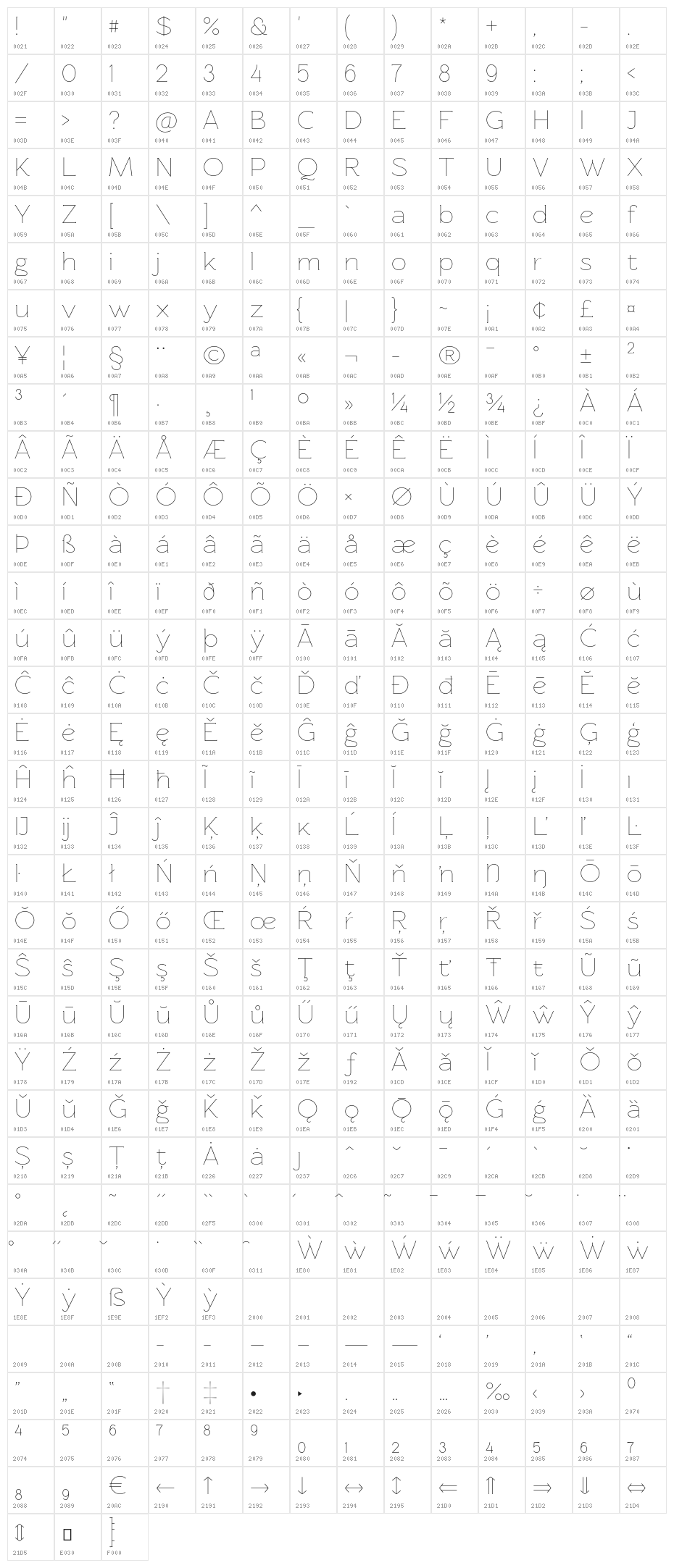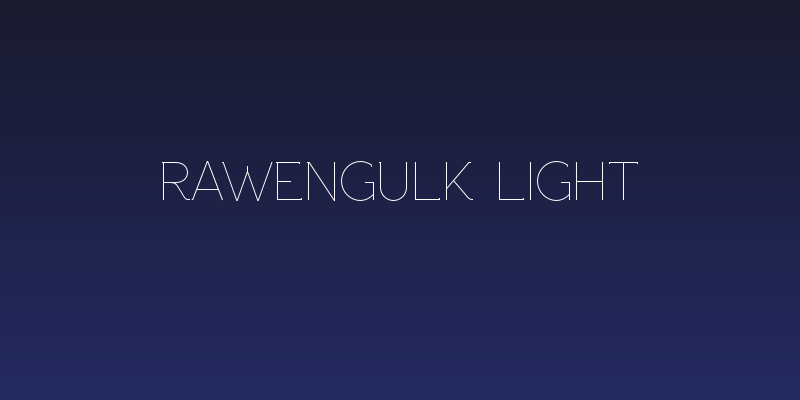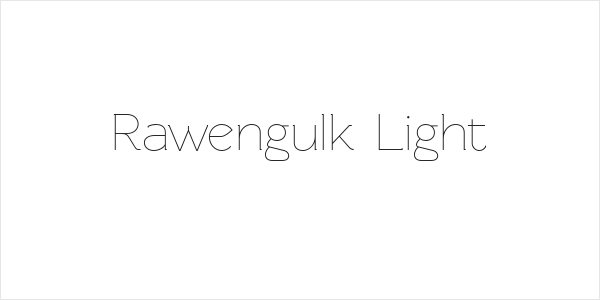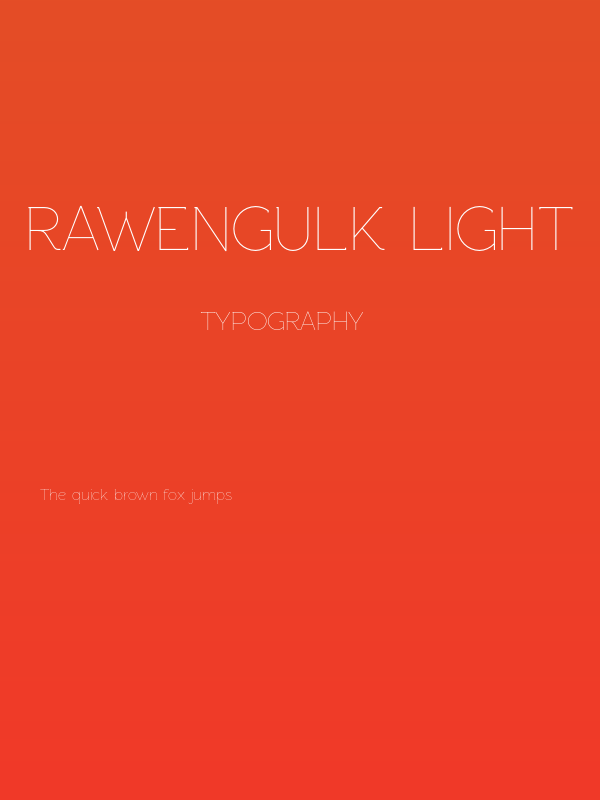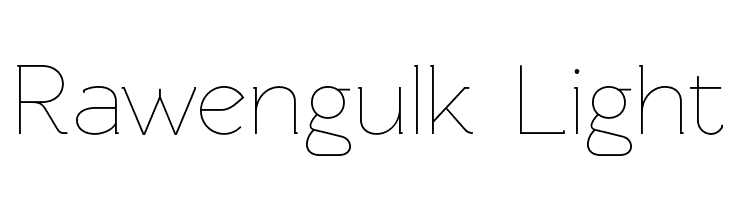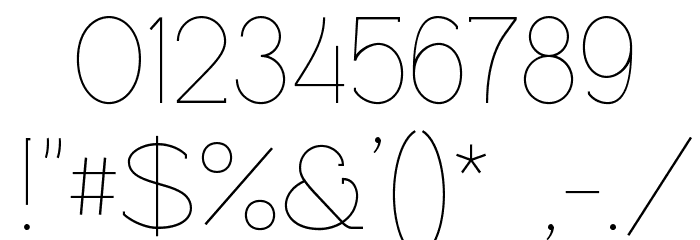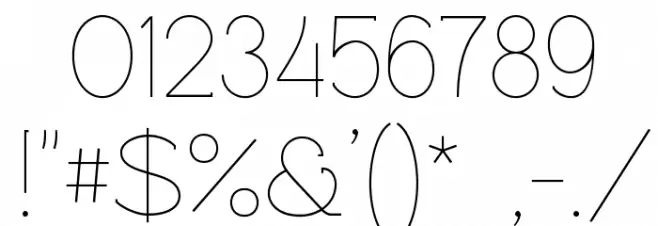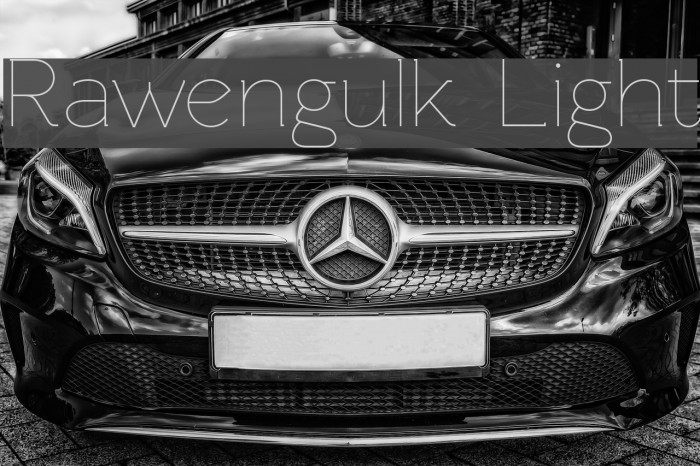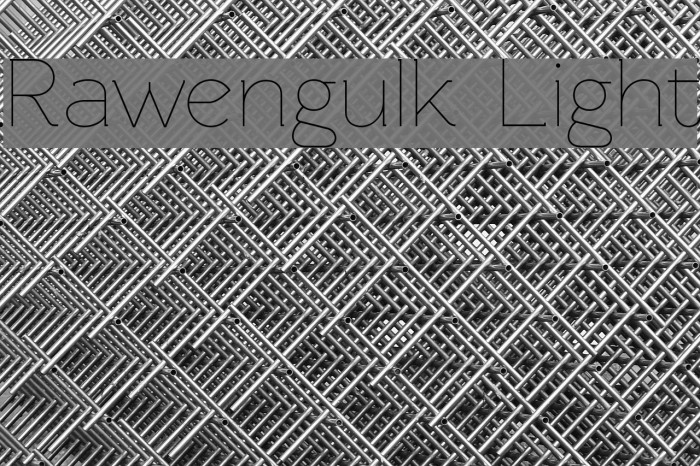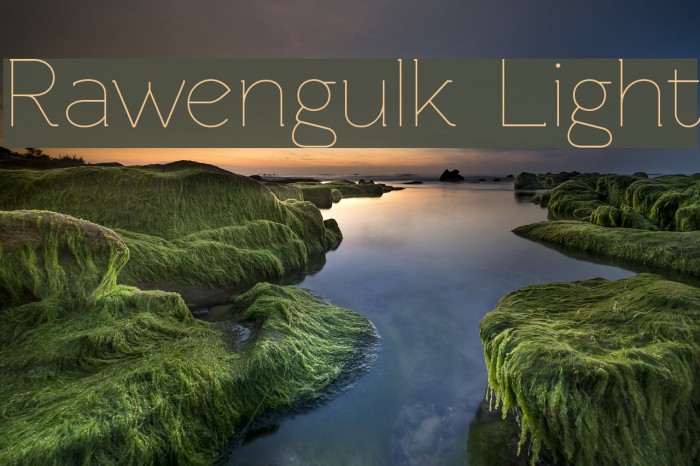
Rawengulk Light Font
Rawengulk Light Description
This font features a sleek and modern design with clean, geometric lines. The characters are evenly spaced, providing a balanced and airy appearance. The uppercase letters are tall and elegant, while the lowercase letters maintain a consistent height, contributing to a harmonious look. The numerals are clear and straightforward, matching the overall minimalist aesthetic. Special characters are designed with the same attention to detail, ensuring they blend seamlessly with the rest of the font. This font's light weight and open structure make it ideal for projects that require a contemporary and sophisticated touch.
| Use Case | Headlines, Body text, Logos |
| Proposed Projects | Ideal for branding, editorial design, digital interfaces, and minimalist posters. |